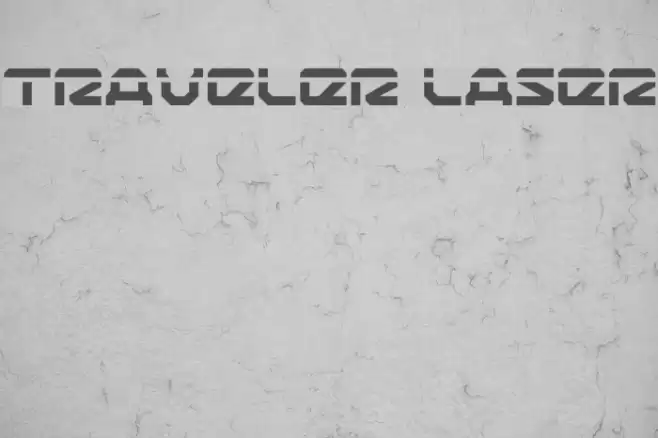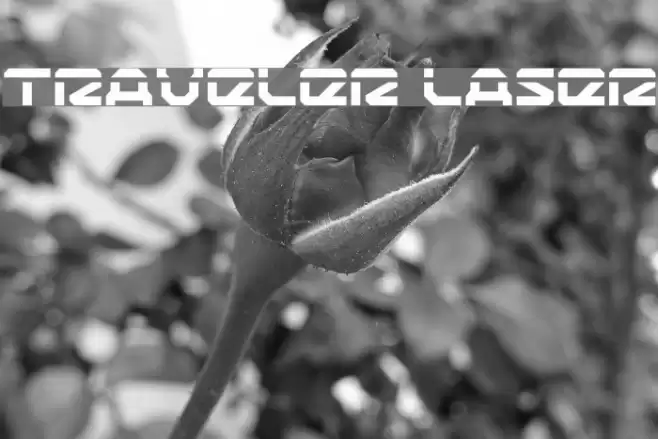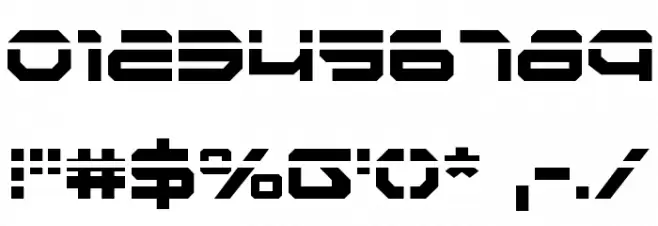
Traveler Laser Font
Traveler Laser Description
This font features a futuristic and geometric design, characterized by sharp angles and a bold presence. The letters are constructed with a blocky, stencil-like appearance, giving it a distinct, modern edge. The uppercase and lowercase letters maintain a consistent style, with uniform line thickness and angular cuts that create a sense of movement and dynamism. The numerals and special characters follow the same design principles, ensuring a cohesive look across all glyphs. This font's unique style makes it stand out, ideal for projects that require a strong, contemporary aesthetic.
A futuristic, geometric font with sharp angles and a bold, modern style from Sci-fi fonts.
- Proposed Projects: Ideal for sci-fi themed designs, video game titles, tech branding, and futuristic posters.